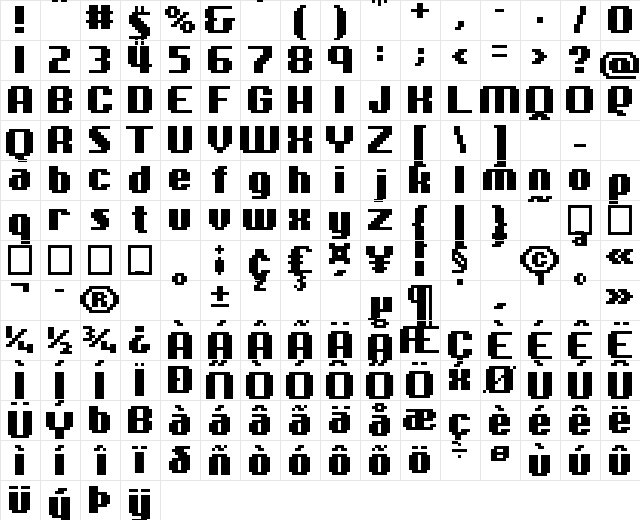
01Energetix Regular
Design Context for 01Energetix Typeface
01Energetix takes a measured approach to typography — its balanced proportions and neutral character make it a reliable workhorse for both digital and print work.